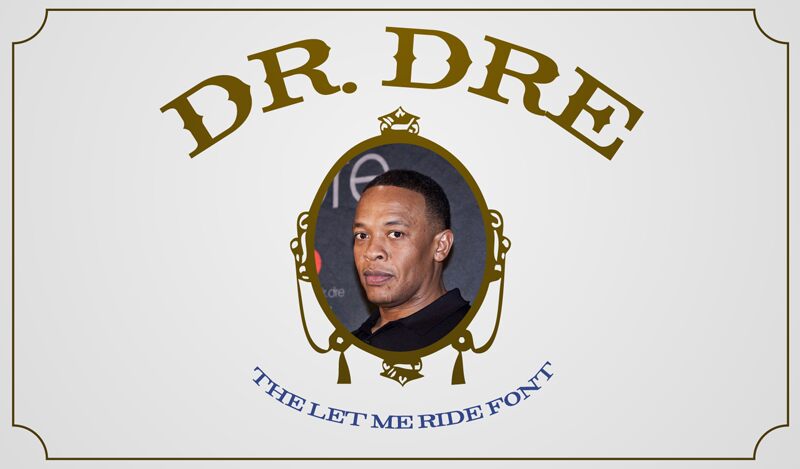
Let Me Ride by Måns Grebäck is a free Western display font with broad, imposing capitals and sharply flared serifs. Strong thick-and-thin contrast gives the lettering a polished saloon-sign elegance.
Frontier themes make it a convincing fit for rodeo posters, country music packaging, and heritage food and drink branding. Its tall forms and pinched joins recall carved or painted storefront lettering rather than rough, distressed wood type. On event merchandise, the distinctive serif shapes can echo decorative borders, badges, and period-style illustrations, turning the wording into part of the ornament.